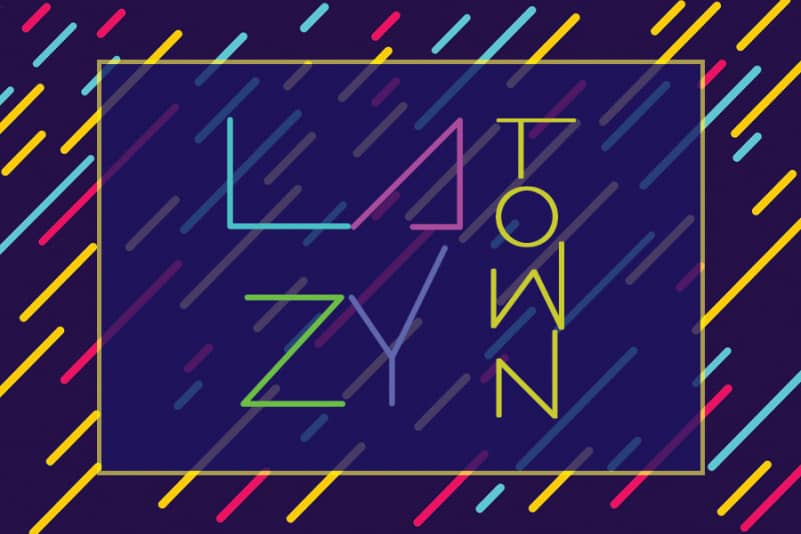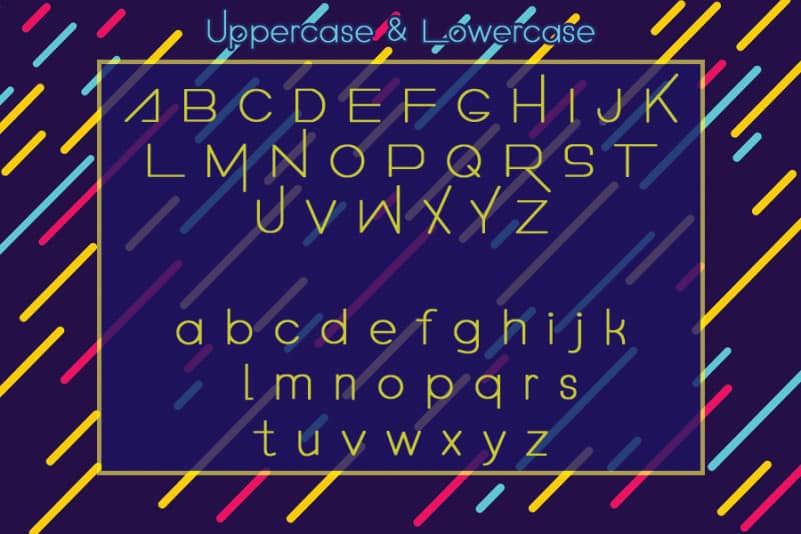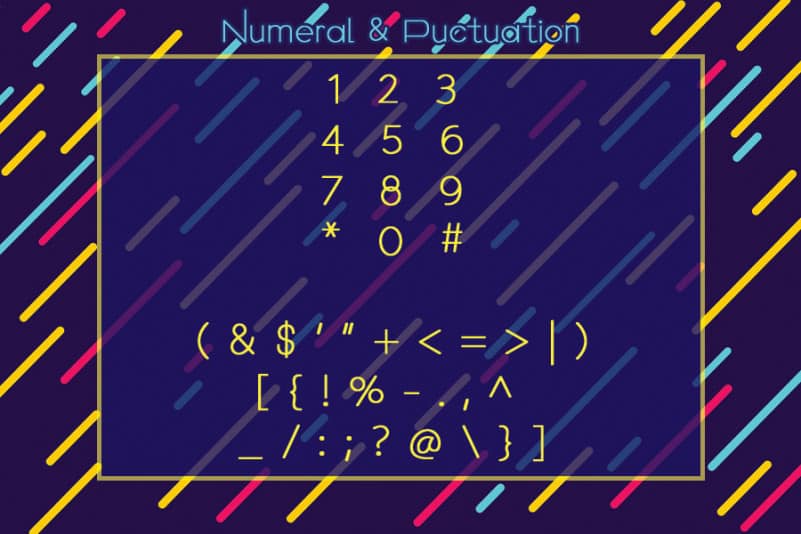
Automatic Display Font
Automatic Display Font is a thin, modern and minimalist display font. This font would be ideal for writing web designs, business cards, or pretty much anything else that requires a unique touch.